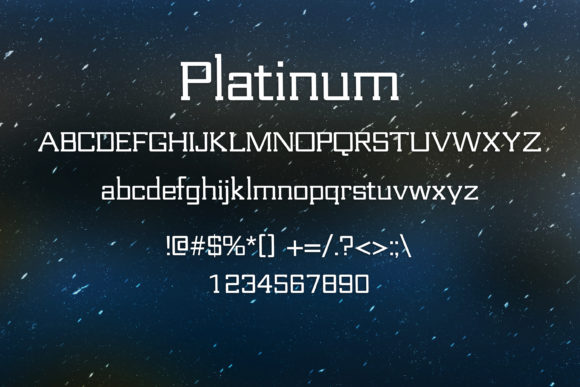
Introduction to Platinum Font
Have you ever been working on a creative project and suddenly, the perfect font pops up in your mind, elevating the entire design? For designers, this moment is pure magic, and it’s exactly what the Platinum Font aims to deliver. With its sleek, modern aesthetic, this unique display font is sure to inspire your next design project.
As a valuable resource for designers, the Platinum Font offers a clean and sophisticated look that’s perfect for a wide range of applications, from eye-catching headlines to cohesive branding. Its high-quality design and transparent background make it an ideal choice for designers seeking a professional and polished look. Whether you’re working on a commercial project or a personal creative endeavor, the Platinum Font is a must-have in your design arsenal.
Key Features of Platinum Font
- Unique, elegant font style ideal for headings, titles, and other text elements in your design.
- Supports a wide range of languages, including Latin, Cyrillic, and Greek alphabets.
Honest Review: Platinum Font
As a designer, I’m always on the lookout for high-quality design resources to elevate my creative projects. Recently, I had the chance to try out the Platinum Font, and I’m here to share my honest review.
Here’s what works well: ✨ The Platinum Font is incredibly versatile, with a wide range of styles and weights that make it perfect for anything from titles to body text. Its transparent background makes it easy to combine with other design elements, and the high-quality vectors ensure that it scales beautifully.
- High-quality vectors
- Wide range of styles and weights
- Perfect for titles and body text
Overall, I’m impressed with the Platinum Font, and I think it’s a great resource for personal projects or small design endeavors. However, for commercial use or large-scale design projects, you might want to consider other options. Still, it’s a great free download that’s definitely worth checking out!
The Platinum Font is a high-quality design resource that offers a unique and creative way to add visual interest to your projects. This font is available for free download and features a transparent background, making it easy to customize and integrate into your designs.
The Platinum Font is ideal for use in a variety of creative projects, including:
- Graphic design and branding
- Marketing materials and advertising
- Print design and publishing